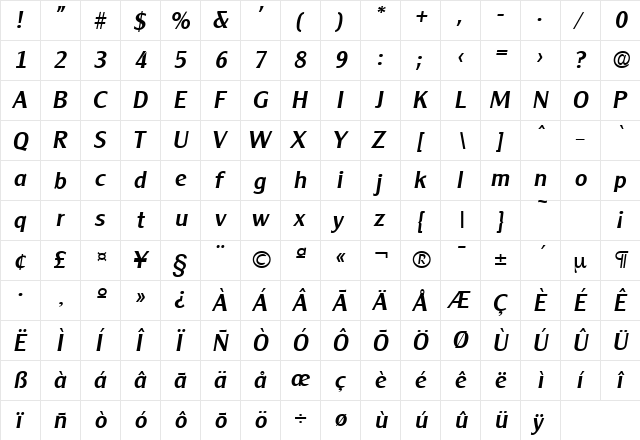
Cleargothic-Serial-Medium RegularItalic
Design Context for Cleargothic-Serial-Medium Typeface
Cleargothic-Serial-Medium has the quiet confidence of well-executed sans-serif typography: versatile, unobtrusive, and dependable at any size. Its italic angle brings a sense of urgency and motion to the letterforms.
Font Pairing: Works well alongside a characterful serif or display font that can carry the expressive load while Cleargothic-Serial-Medium handles the functional copy.
Pro Tip: Pair Cleargothic-Serial-Medium with a display or serif font for headlines — its neutral character makes it an excellent supporting player in complex typographic systems.